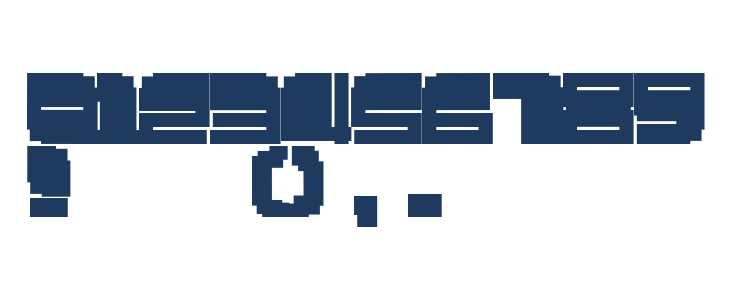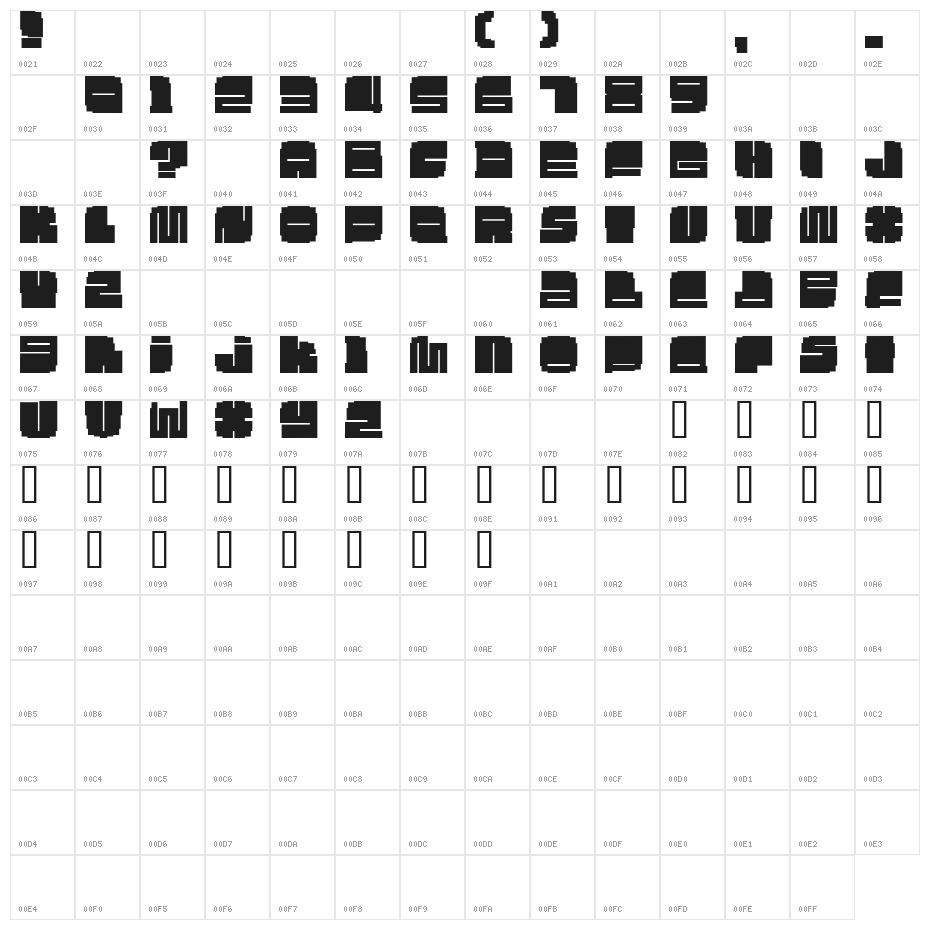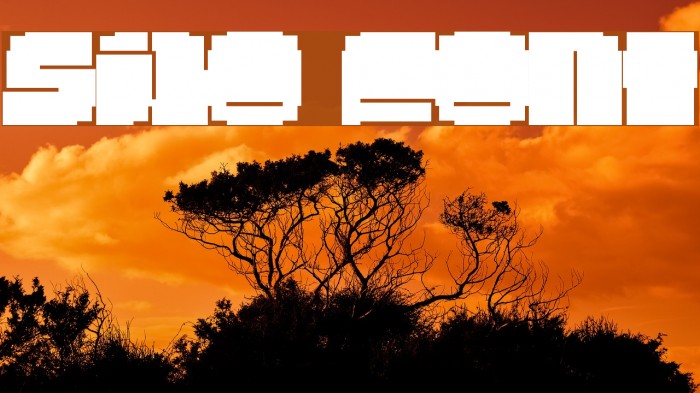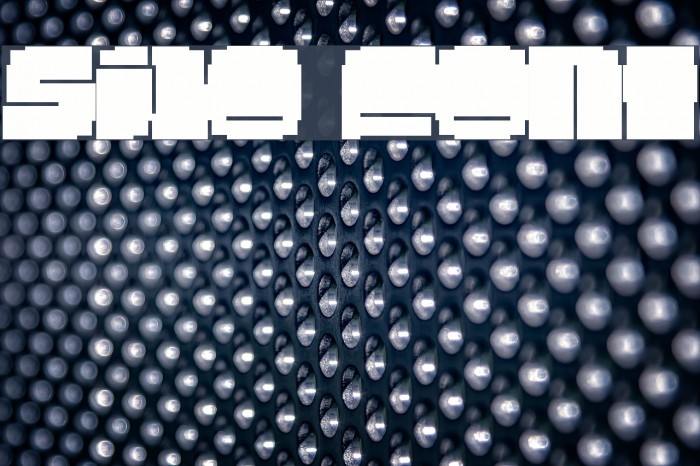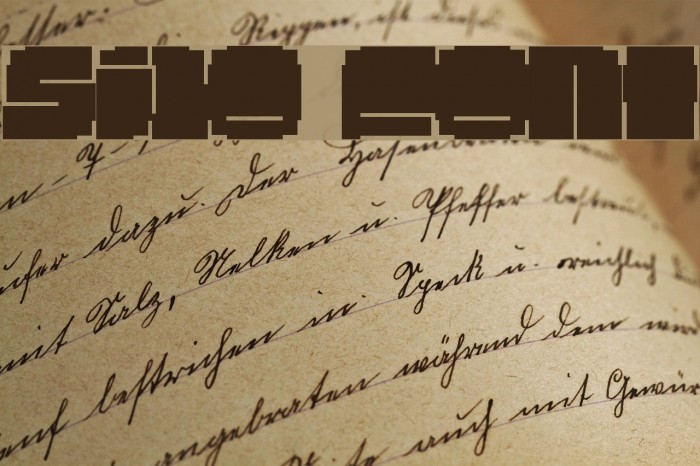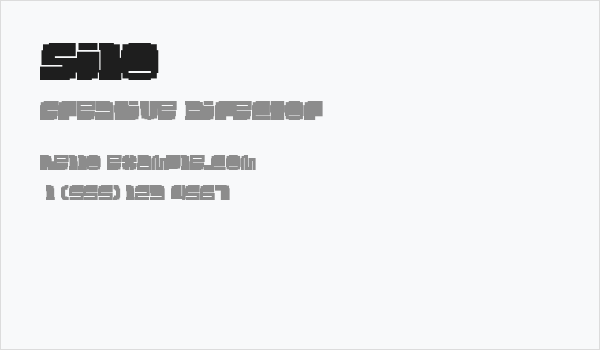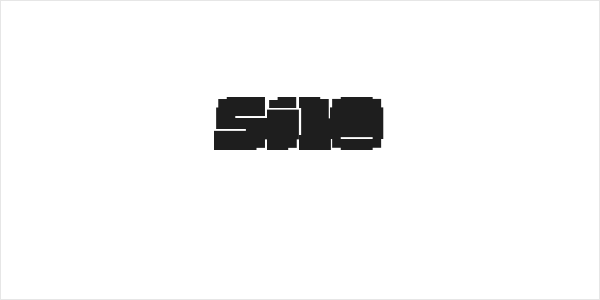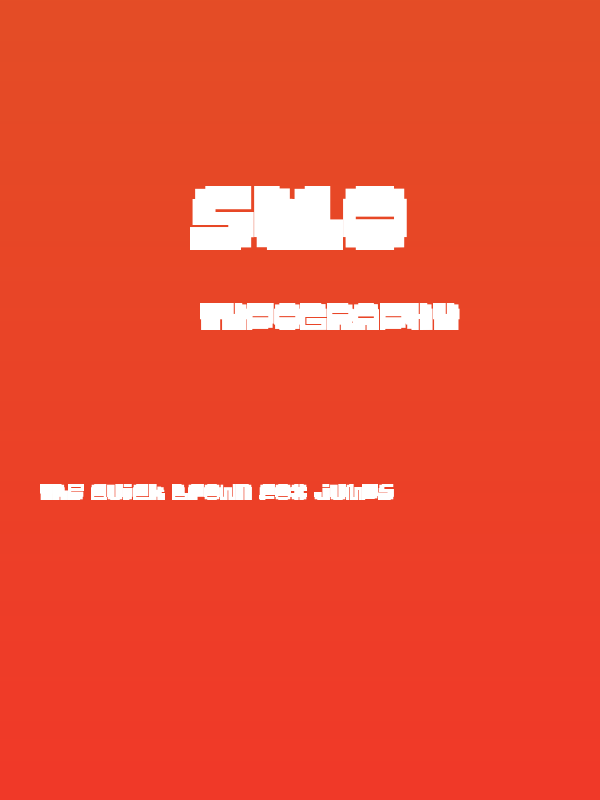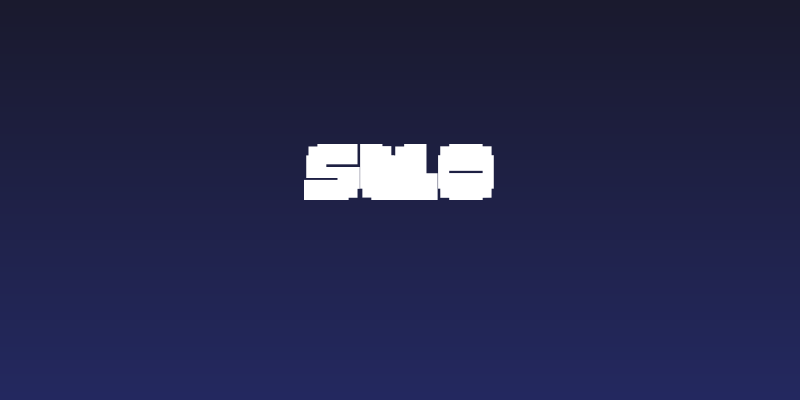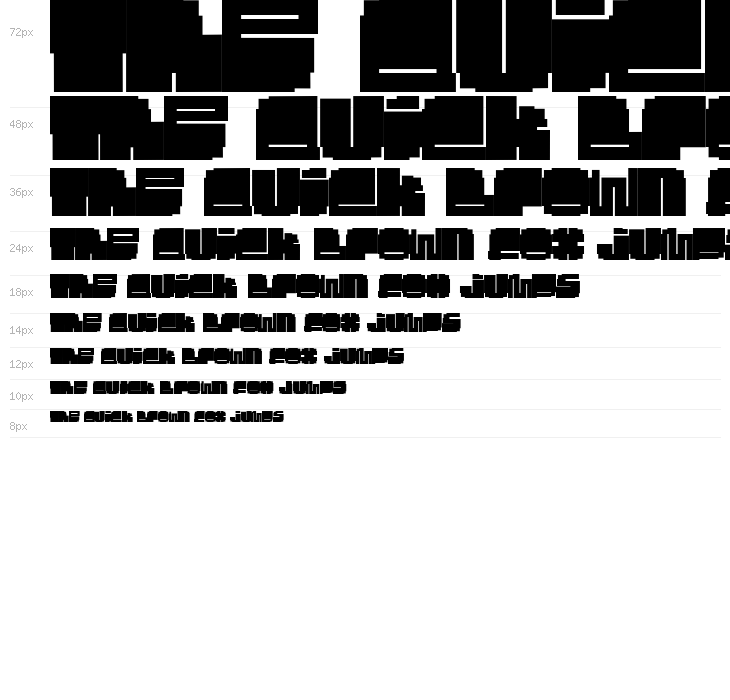
Silo Font
Silo Description
This font features a bold, geometric design with a distinctly modern and futuristic aesthetic. The characters are constructed with thick, block-like shapes, giving them a strong presence on the page. The angular and sharp edges contribute to a digital or technological feel, making it suitable for contemporary design projects. The uppercase and lowercase letters maintain a consistent style, ensuring uniformity across different text elements. The numbers and special characters are designed to match the boldness and geometric nature of the alphabet, providing a cohesive look throughout.
| Proposed Projects | Ideal for technology branding, digital media, video game titles, and futuristic-themed posters. |